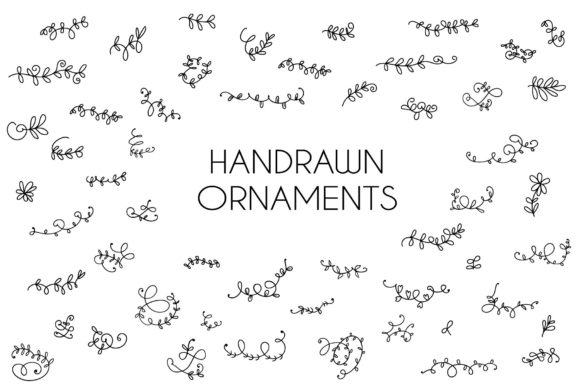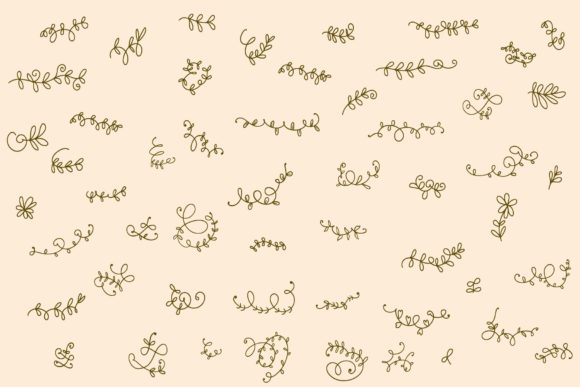
About Handrawn Ornaments Font
“Handrawn Ornaments” is a dainty and useful dingbats font that adds a touch of hand-drawn elegance to your design projects. Whether you’re a crafter, digital designer, presenter, or greeting card maker, this font is perfect for creating charming and captivating designs.
With “Handrawn Ornaments,” you have access to a variety of delicate and intricate decorative elements. From swirls, borders, and flourishes to floral motifs, frames, and doodles, this font offers a wide range of ornaments that can be used to enhance your creations. Whether you want to add decorative elements to your crafts, create artistic designs for digital projects, or make sophisticated greeting cards, this font has you covered.
When using “Handrawn Ornaments,” you can easily incorporate the ornaments into your projects. Simply select the desired ornament and place it strategically within your design. You can use the ornaments to create borders, dividers, frames, or decorative accents that bring an elegant and hand-drawn feel to your composition. These elements are perfect for adding a touch of sophistication and intricacy to your designs, making them visually appealing and eye-catching.
One of the great advantages of “Handrawn Ornaments” is its versatility. You can use it for a wide range of projects, from crafting and scrapbooking to digital designs and presentations. The dainty and intricate nature of the ornaments makes them suitable for various themes, including weddings, invitations, vintage-inspired designs, and more. Whether you’re creating elegant stationery, intricate patterns, or stylish presentations, this font provides the elements you need to infuse your designs with a hand-drawn charm.
To make the most of “Handrawn Ornaments,” experiment with different combinations and placements of the elements. Mix and match swirls, floral motifs, and other decorative elements to create custom designs that convey your desired aesthetic or theme. You can also adjust the size, color, and positioning of the ornaments to suit your design preferences and make them stand out.
Overall, “Handrawn Ornaments” is a dainty and useful dingbats font that allows you to add a touch of hand-drawn elegance to your design projects. Whether you’re creating crafts, digital designs, presentations, or greeting cards, this font provides a variety of delicate and intricate ornaments to enhance your creations. With its versatility and ability to evoke a sophisticated and artistic feel, “Handrawn Ornaments” is the perfect addition to your font library, enabling you to effortlessly elevate your designs and create captivating and visually appealing visuals.